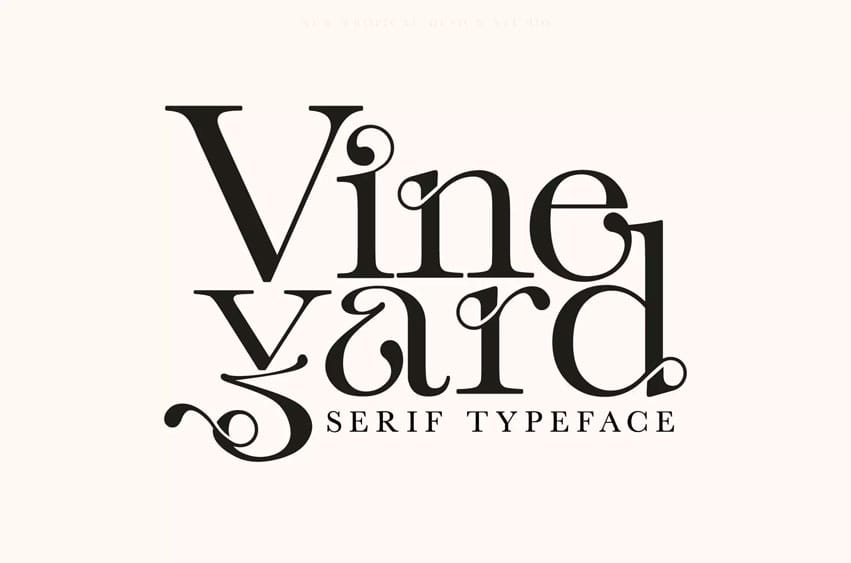
Vineyard Font is a decorative serif typeface that shows both elegance and charm. The intricate drawings flow elegantly, just like delicate vines in an abundant vine-covered territory. The font design features low-contrast elements that create a classic, unchanging look.
Vineyard grants fine design expression to any project by adding sophisticated appeal to logos, headlines, and invitations.